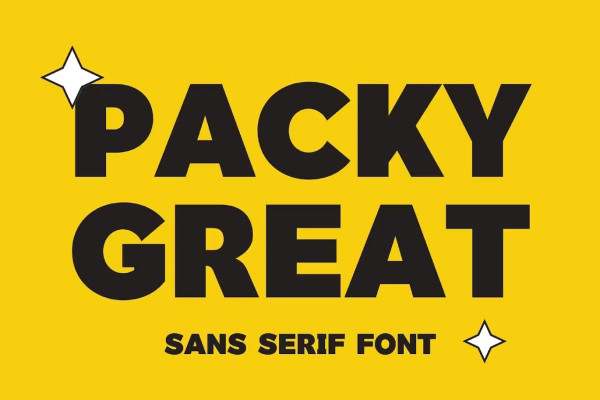
Packy Great Font
Packy Great Font, inspired by the famous minimalist logo perfect for the purposes of designing templates, brochures, videos, advertising branding, logos, invitation, layout design, elegant crafting, beauty design and other